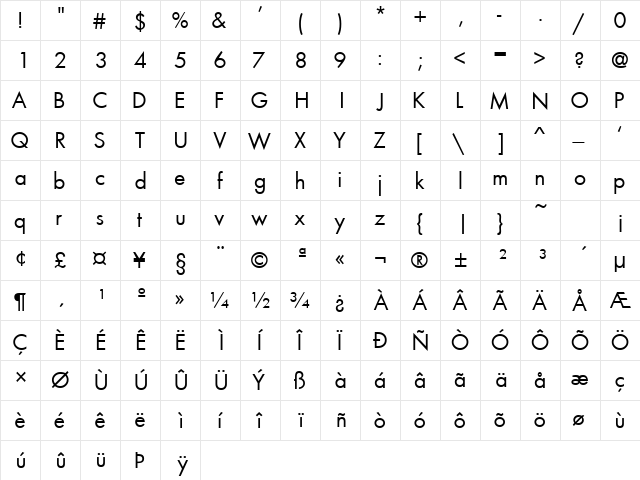
KudosRomanSSi Regular
Design Context for KudosRomanSSi Typeface
KudosRomanSSi takes a measured approach to typography — its balanced proportions and neutral character make it a reliable workhorse for both digital and print work.